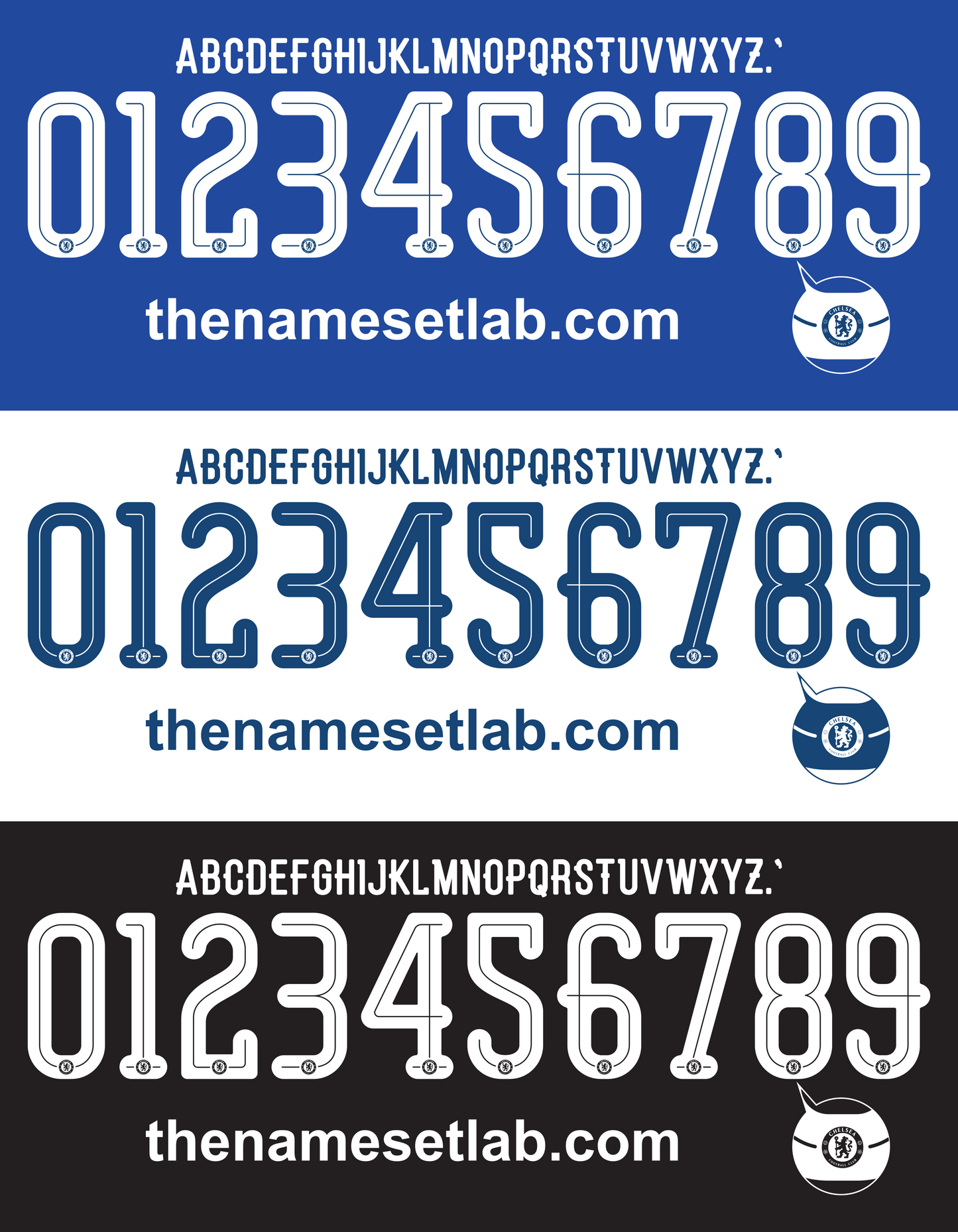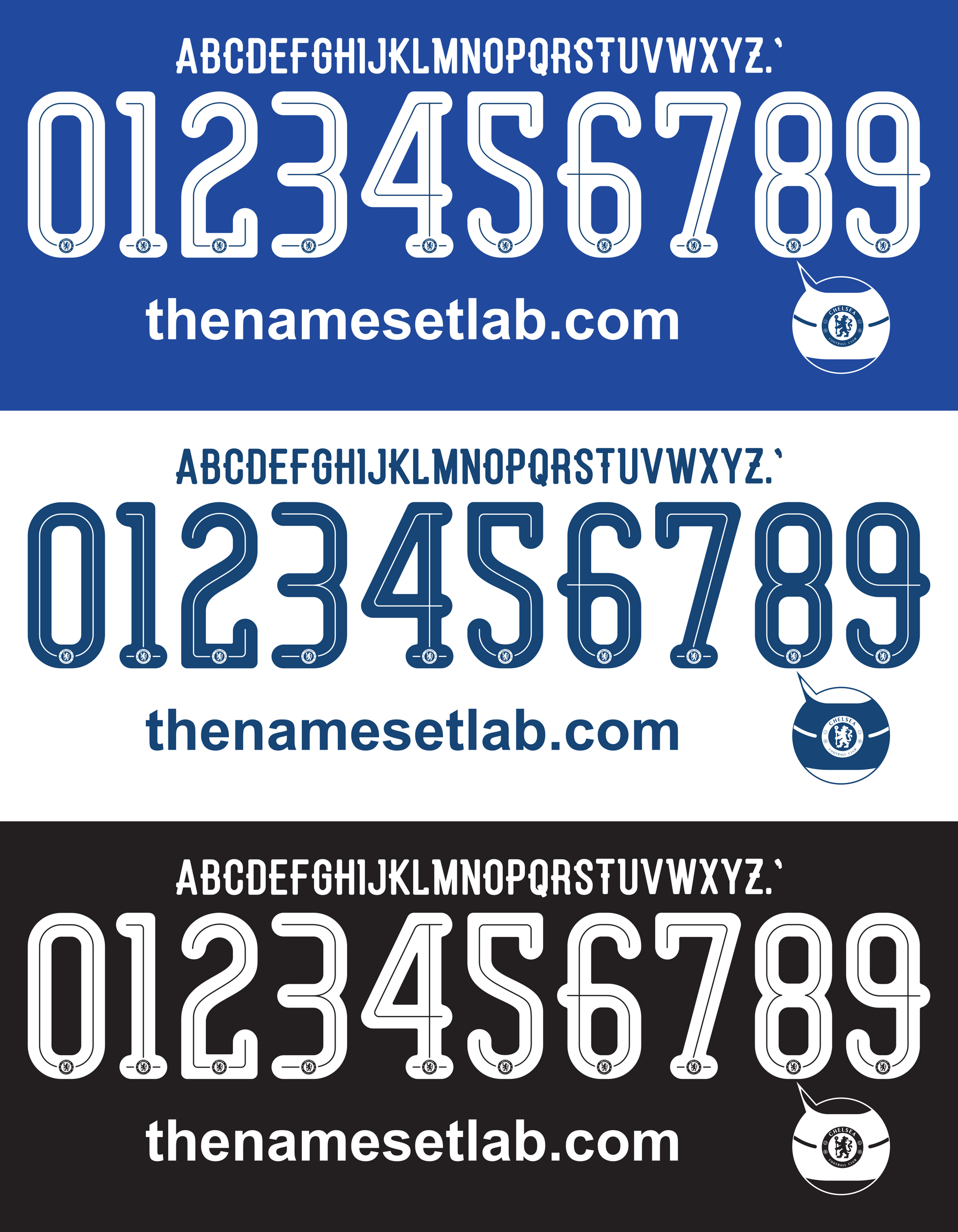
Chelsea 2015-2016 UCL / Cup Font Nameset AI Vector File
Download this Chelsea 2015-2016 UCL / Cup nameset as a high-quality .ai vector file. Styled with the Chelsea 15/16 font, it’s perfect for recreating Champions League or cup shirts, designing custom graphics, or enhancing your kit collection. Ideal for Chelsea fans and football memorabilia enthusiasts.